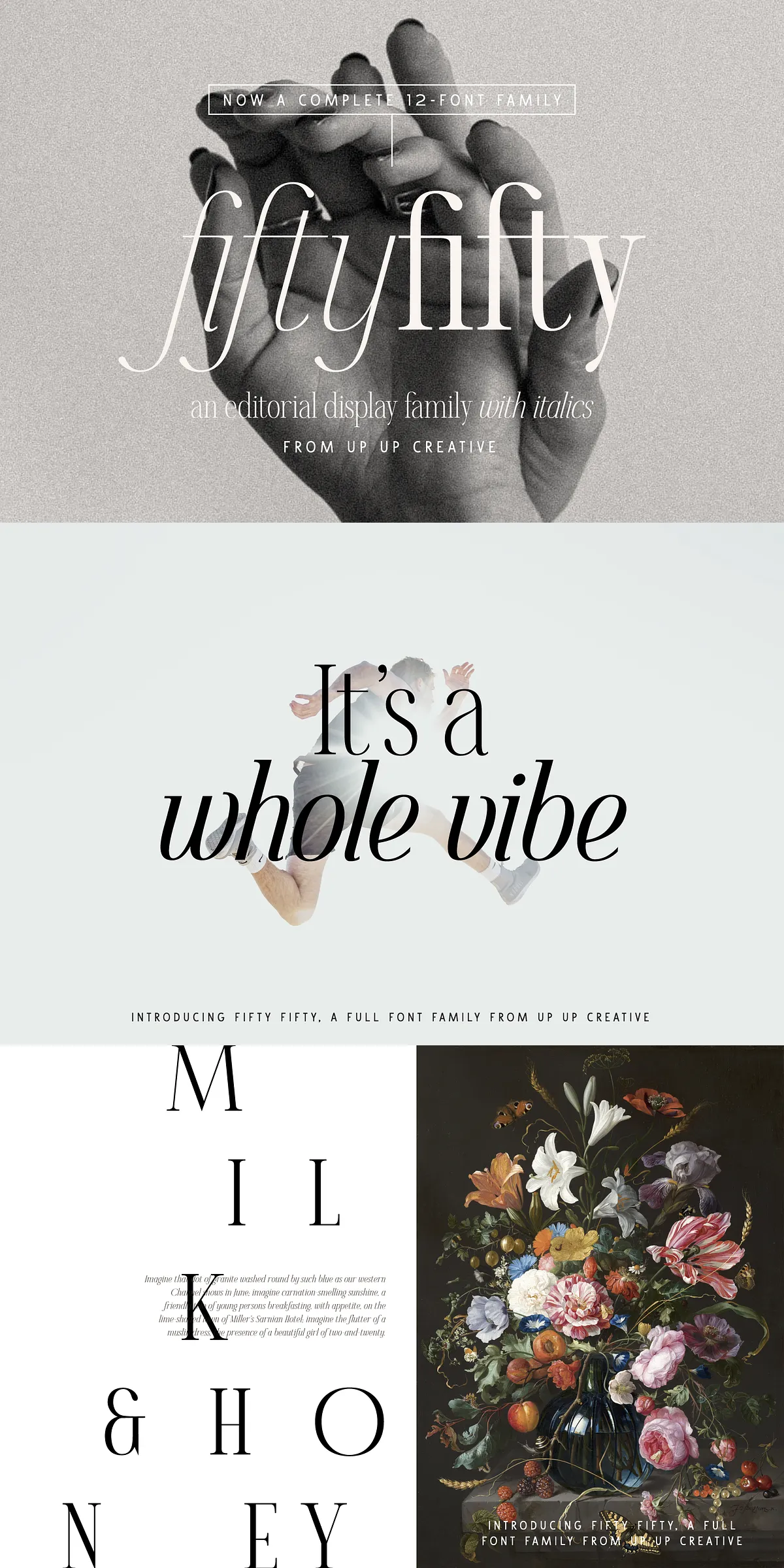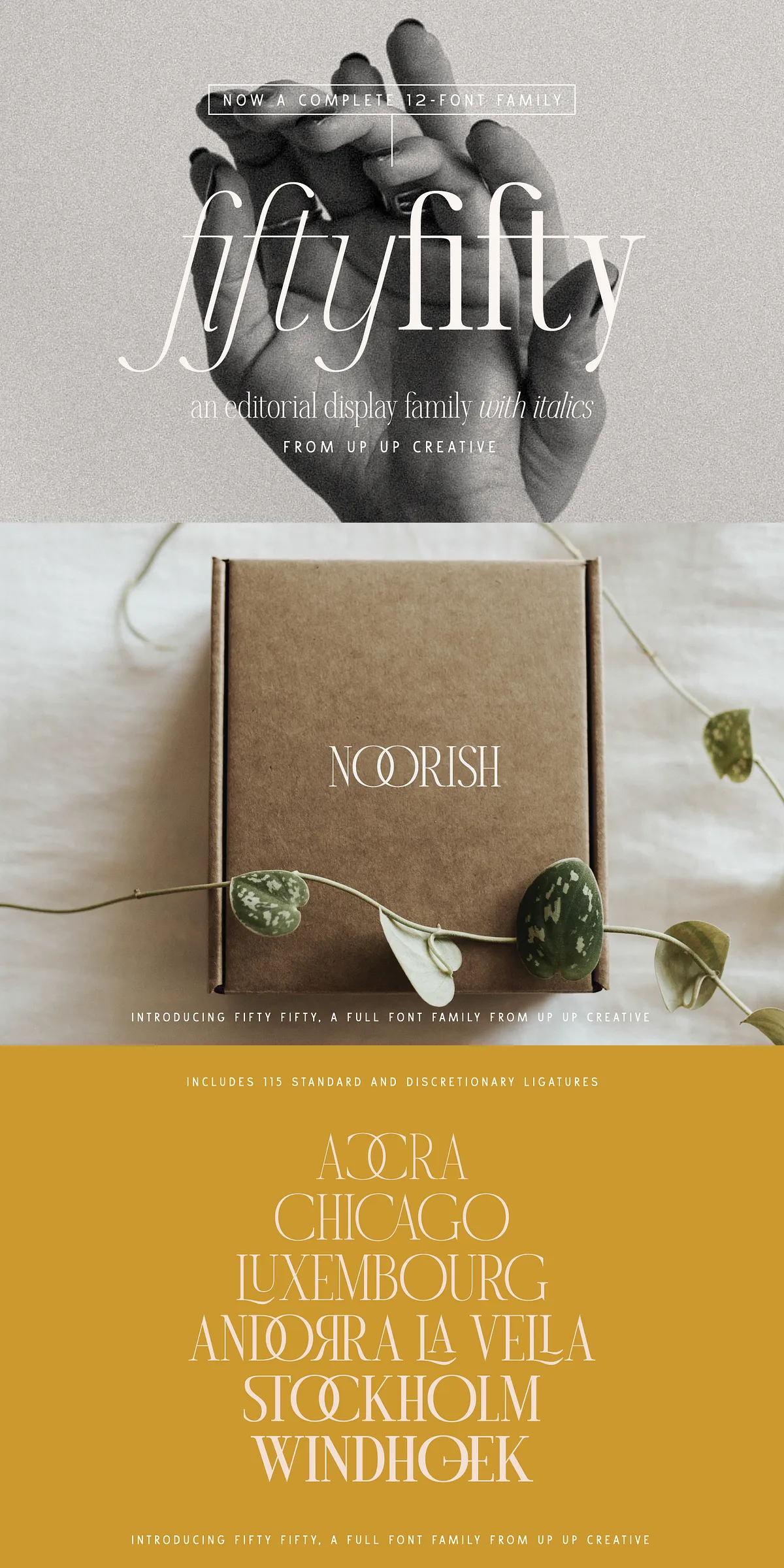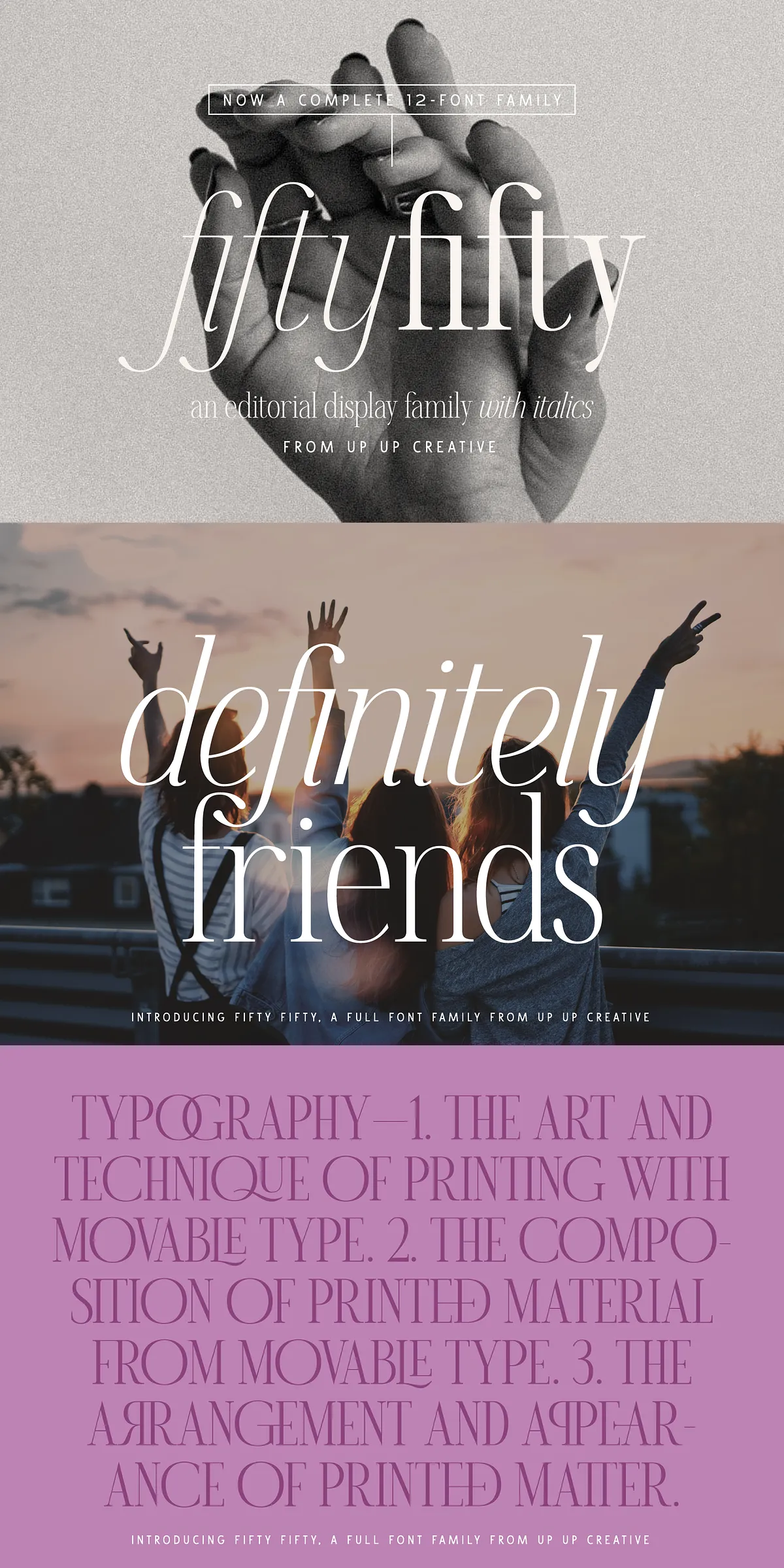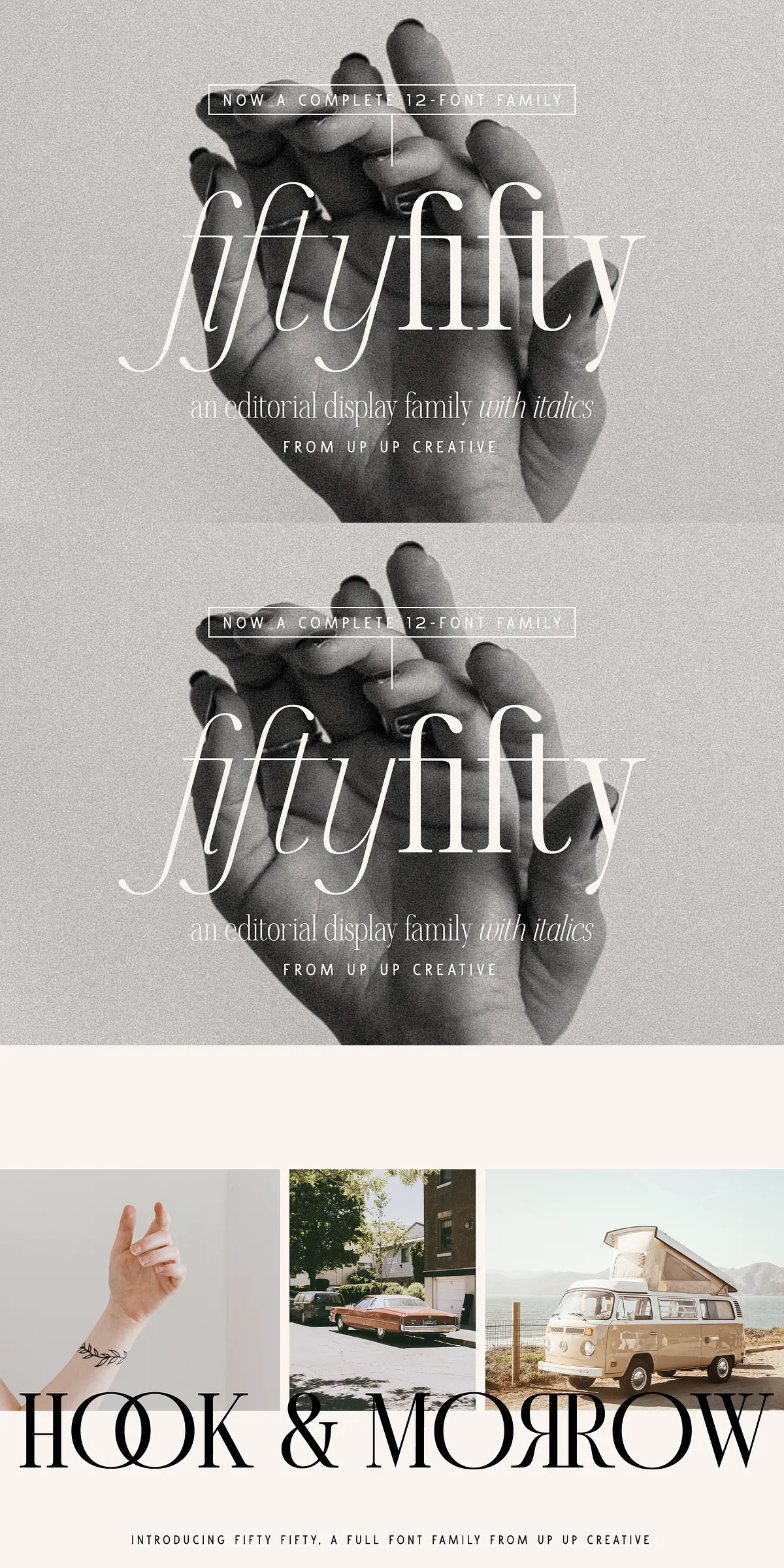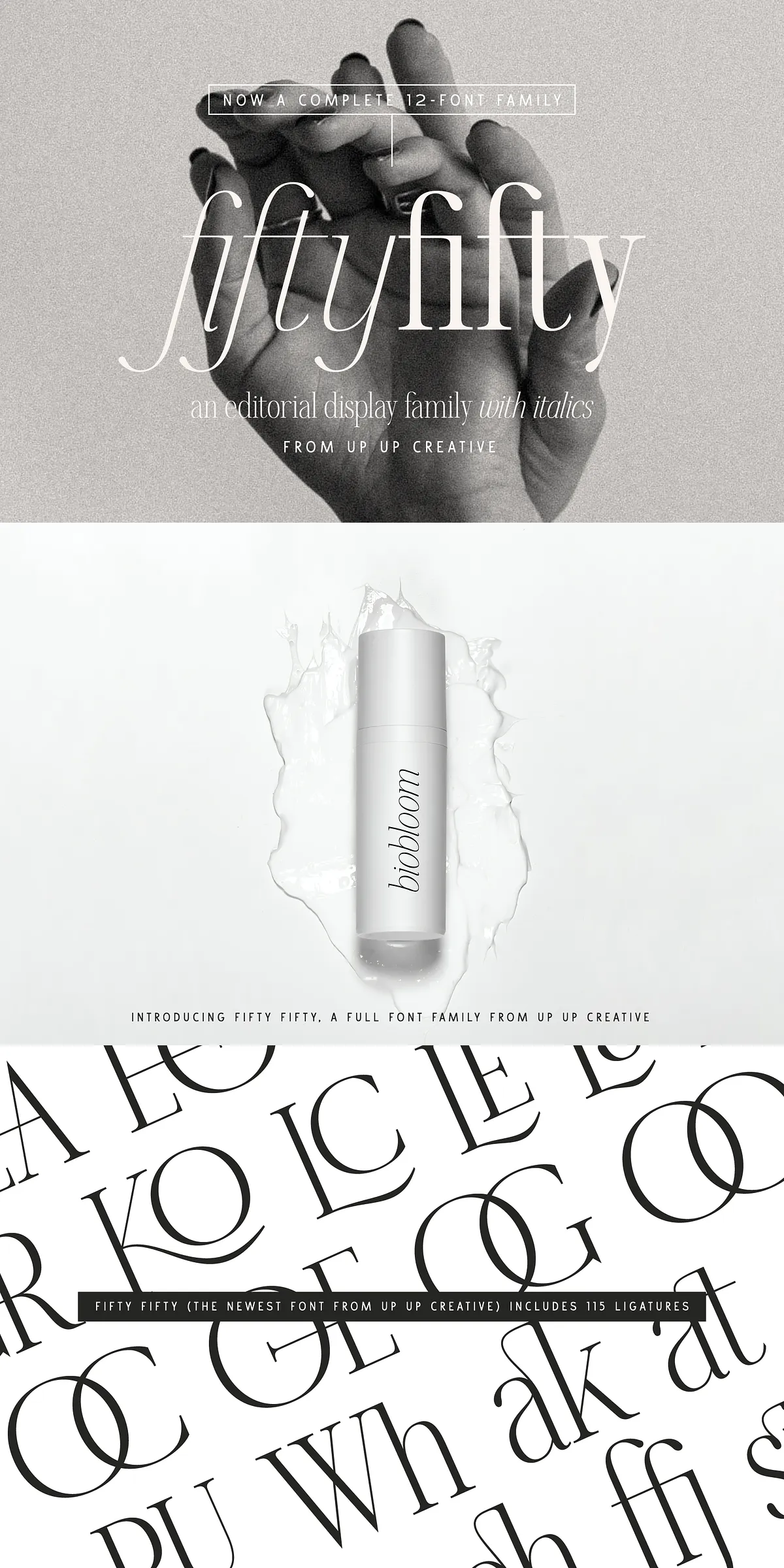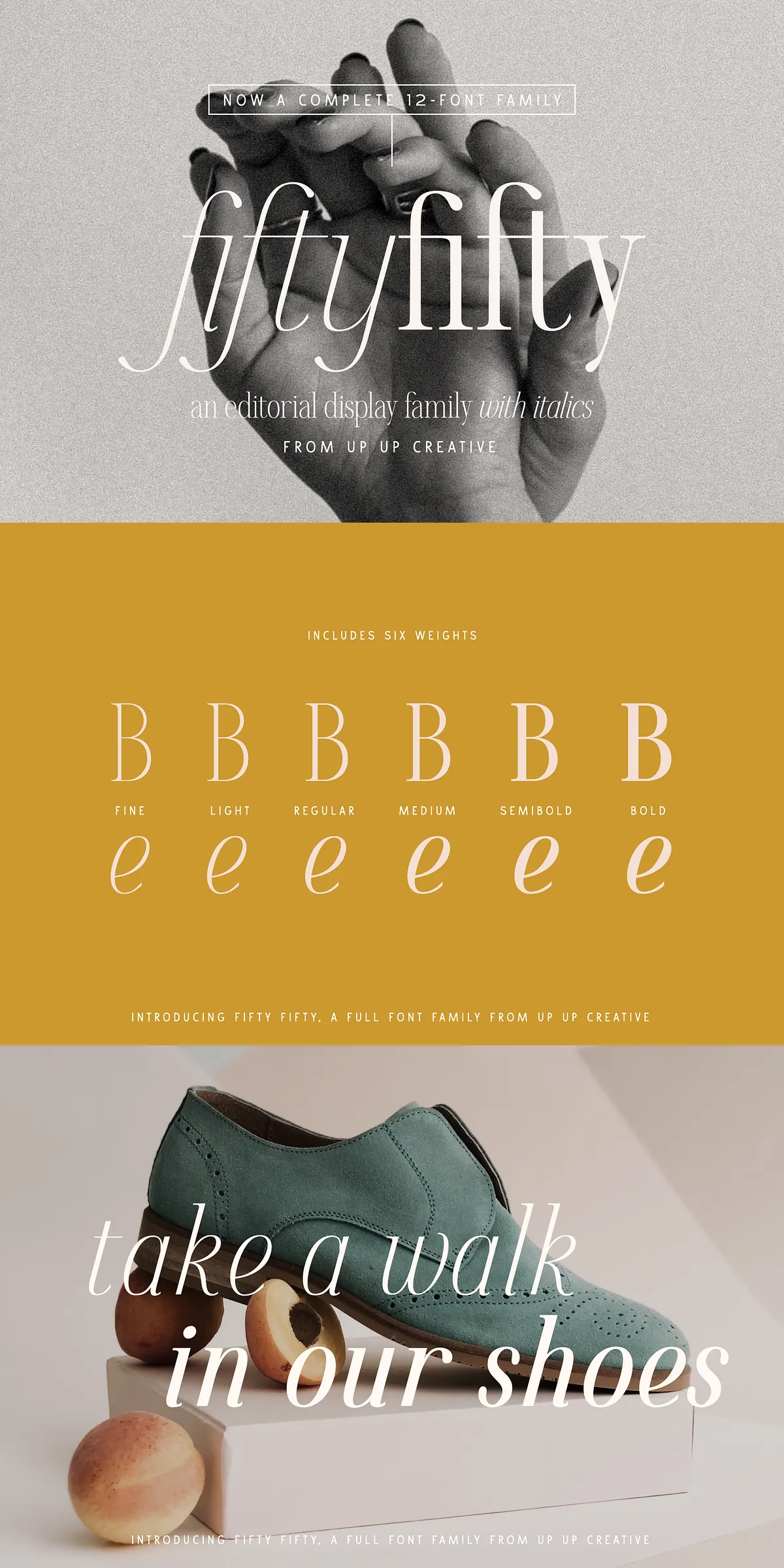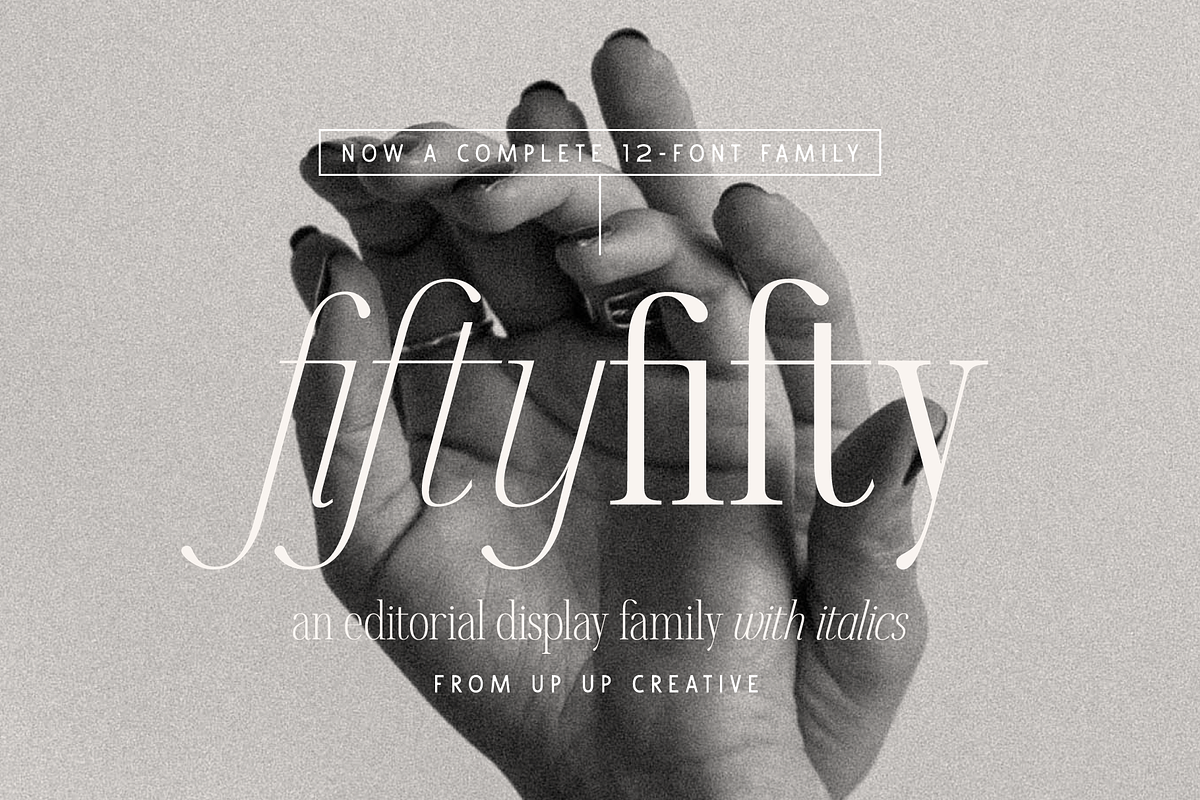
Break through typographic limits with Fifty Fifty, the newly expanded, full-fledged serif font family that delivers unmatched versatility and sophistication. Released in 2025 as an evolution of the top-selling single weight, this six-weight family sets a new standard in editorial typography. With six distinct weights—each available in both upright and italic variants—Fifty Fifty offers precise control over hierarchy, tone, and visual rhythm, making it ideal for any project that demands elegance and impact.
Design with Precision: Features That Demand Attention
Built for designers who value detail and professionalism, Fifty Fifty is packed with advanced typographic capabilities. It includes over 700 glyphs and a remarkable 117 standard and discretionary ligatures—ensuring your text flows naturally, especially in long-form content. From elegant headline treatments to subtle branding touches, every character is meticulously crafted for visual harmony and readability.
- 6 Weights, 12 Styles – Thin, Light, Regular, Medium, Semi-Bold, and Bold, all with matching italics for expressive contrast.
- 117 Ligatures – Smooth, automatic connections between characters such as fi, fl, ffi, and ffl for cleaner, more polished text.
- OpenType Power – Access rich typographic features like character variants, stylistic sets, case-sensitive forms, and contextual alternates using modern design software.
- Multi-Language Support – Fully supports Latin, Greek, Cyrillic, and multiple currency symbols (including USD, EUR, GBP, JPY), perfect for global brands and international publications.
- Creative Flexibility – Designed to shine in all caps for headlines and logos, but equally powerful in lowercase for body text and narrative design.
Where Fifty Fifty Shines: Design Applications
Whether you’re crafting a high-end magazine spread, designing a luxury brand identity, building a poster series, or launching a new product, Fifty Fifty delivers exceptional results:
- Editorial layouts and book typography
- Brand logos and business stationery
- Poster design and event promotions
- Website headings and UI microcopy
- Product packaging and print collateral
- Personalized monograms and invitations
Transform Your Visual Narrative with a Typeface That Speaks Volumes
Fifty Fifty isn’t just a font—it’s a design partner. Its smooth curves, balanced proportions, and dynamic weight range give your work a sense of confidence, refinement, and purpose. It’s perfect for creatives who seek typographic excellence without sacrificing ease of use.